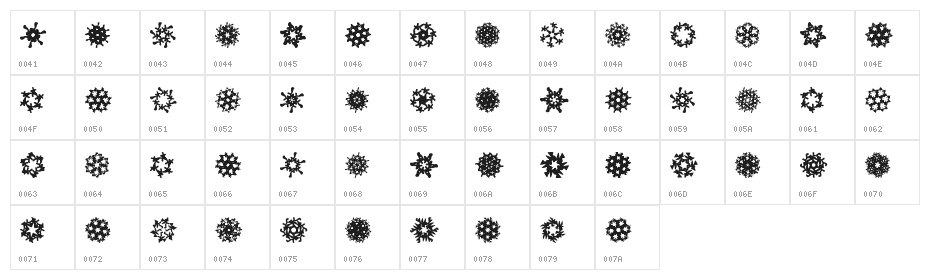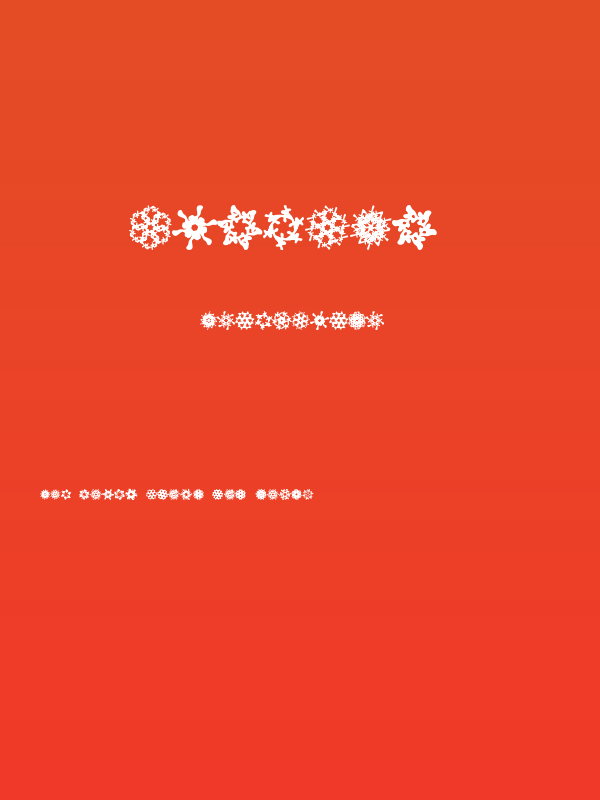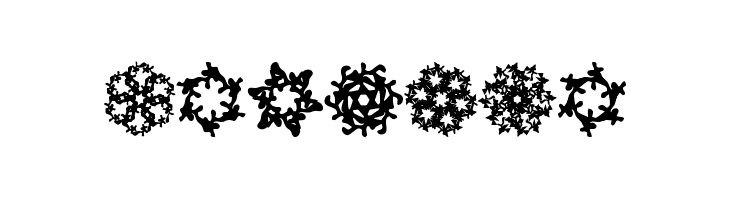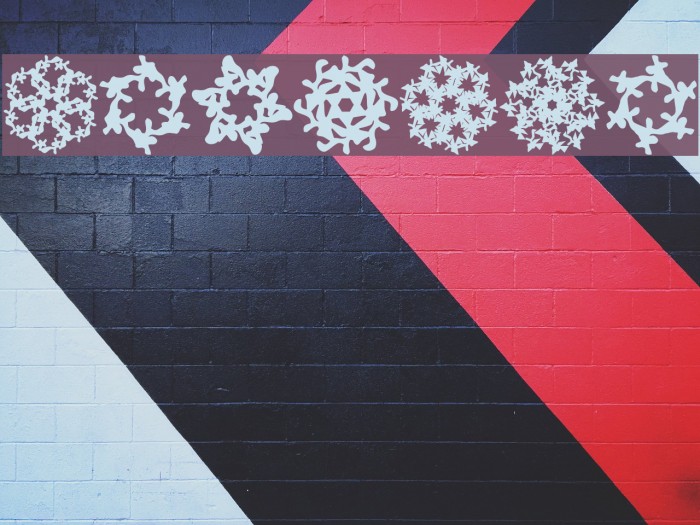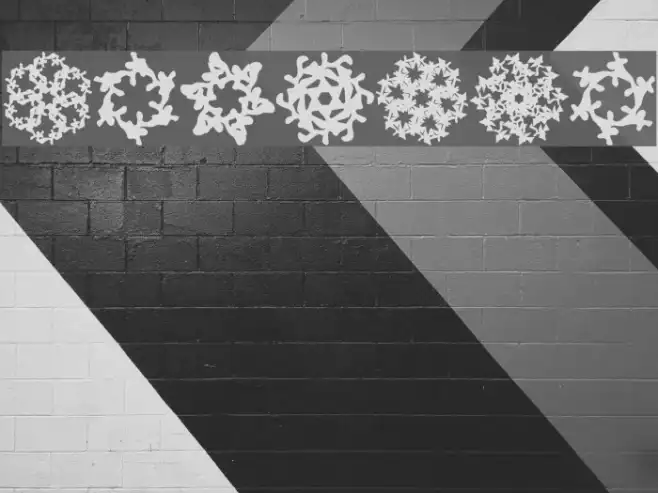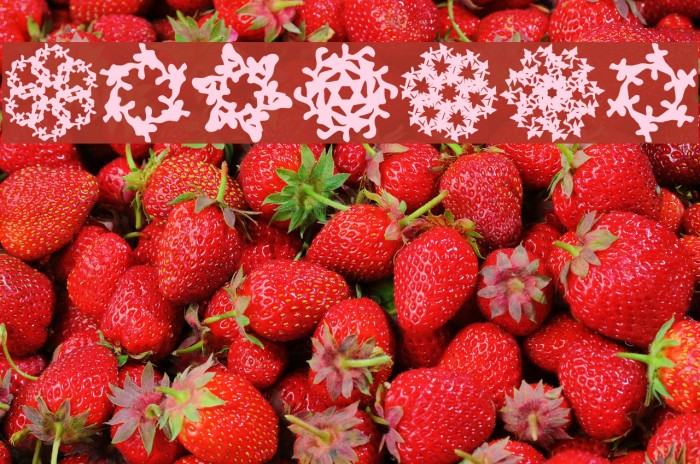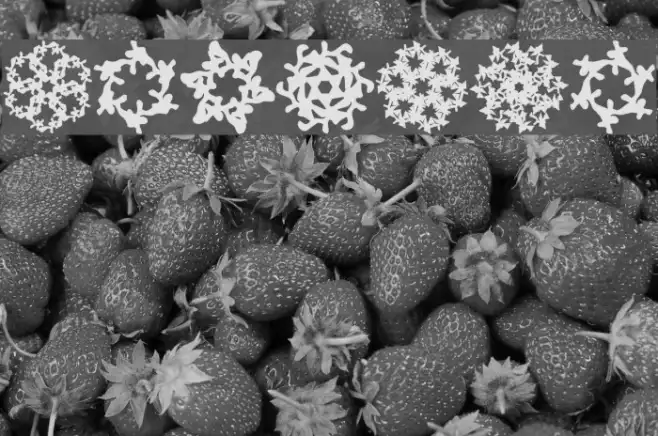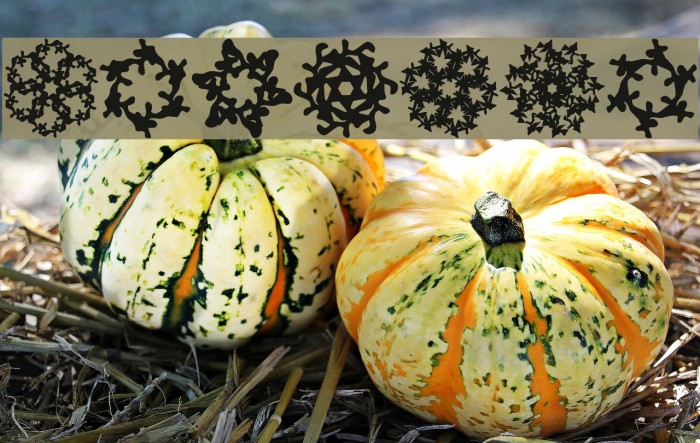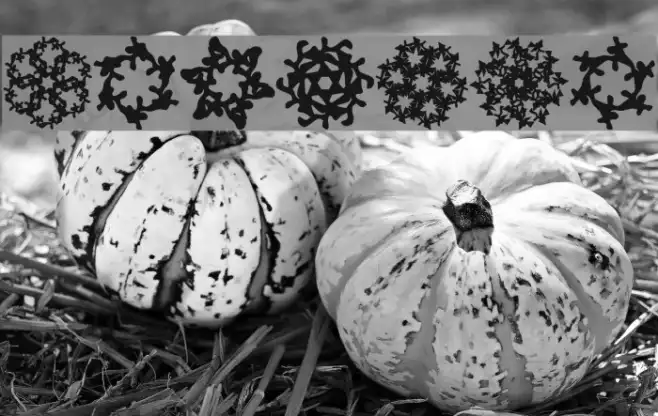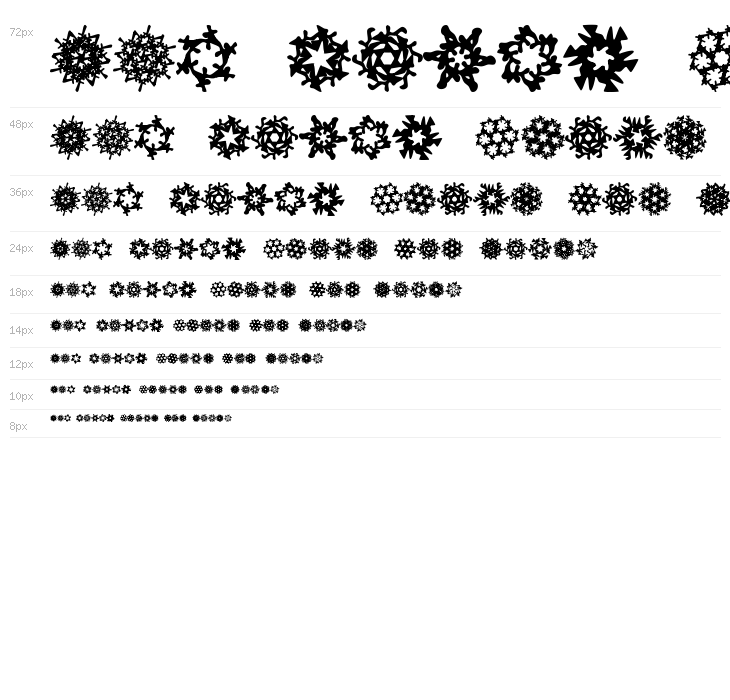
LaMorte5 Font
LaMorte5 Description
A highly decorative and ornamental dingbat font featuring intricate, snowflake-like or mandala-style glyphs, each character forming a unique, complex geometric pattern in solid black.
| Use Case | Decorative elements, borders, icons, embellishments. |
| Proposed Projects | Holiday cards, winter-themed designs, decorative borders, invitations, scrapbooking, digital art. |